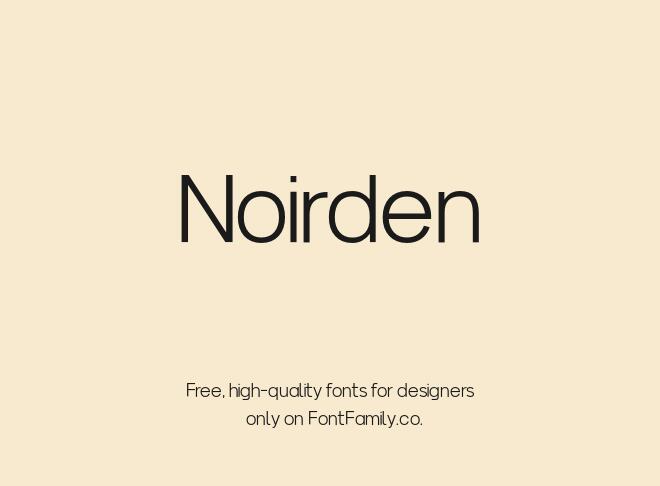
Noirden Font
Noirden Font is a modern, geometric typeface that marries sleek minimalism with a distinctive character. Its clean lines, balanced proportions, and subtle detailing make it perfect for display use, particularly in logo design, branding, and headline text. This font is a standout choice for those seeking a contemporary, minimalist aesthetic. Compared to other fonts, Noirden Font is uniquely versatile, equally effective in both large and small sizes. Its elegant geometry conveys a sense of precision and sophistication, making it an excellent choice for design projects that require a modern, sleek, and professional touch. Its free personal use license makes it a great choice for individual designers and hobbyists. Whether you're creating a brand identity, designing a website, or crafting an invitation, Noirden Font is a font that will undoubtedly elevate your design.